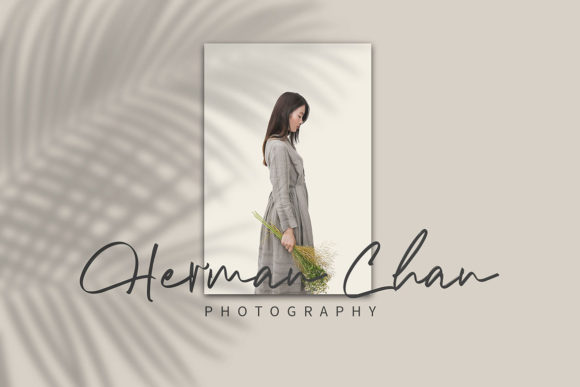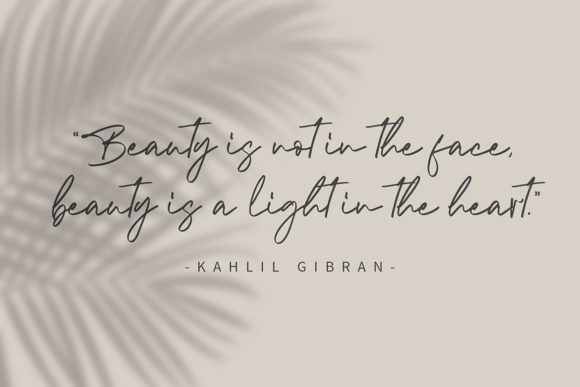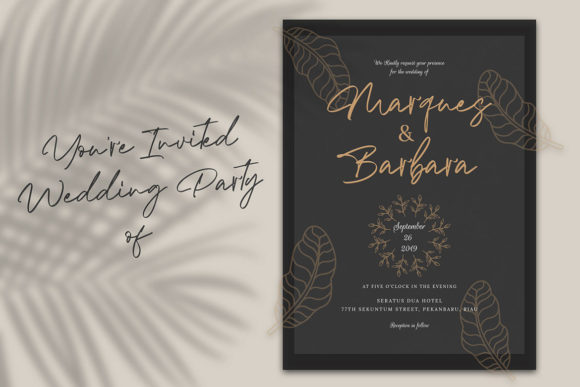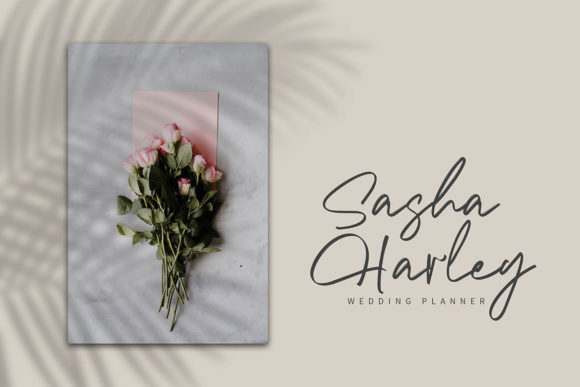
About The Morgan Font
The Morgan is an elegant and flowing handwritten font that captivates with its versatility and grace. With its smooth and organic letterforms, this font exudes a sense of sophistication and beauty, making it a perfect choice for a wide range of projects.
When it comes to wedding invitations, The Morgan shines as it adds a touch of elegance and romance to the design. Its flowing strokes and delicate curves create a sense of movement and grace, setting the tone for a special and memorable occasion. Whether you’re planning a traditional or modern wedding, The Morgan can beautifully complement the theme and convey the desired mood.
In addition to wedding invitations, The Morgan is also well-suited for creating beautiful stationery art. Its flowing and fluid nature lends itself to creating stunning letterheads, note cards, and personalized stationery. The font’s versatility allows it to adapt to various styles, whether you prefer a classic and timeless look or a more contemporary and artistic approach.
Eye-catching social media posts are another area where The Morgan can truly shine. Its elegant and flowing script adds a touch of sophistication and professionalism to your visuals, making them stand out in a crowded digital space. Whether you’re creating Instagram quotes, Facebook banners, or Pinterest graphics, The Morgan will help you create captivating and visually appealing content.
One of the key advantages of The Morgan is its ability to bring a sense of versatility to your designs. While it excels in formal and romantic settings, it can also be used to create more casual and playful designs. By adjusting the size, spacing, and pairing it with complementary fonts, you can adapt The Morgan to various design contexts, from luxury branding to whimsical illustrations.
When working with The Morgan, consider exploring its alternate characters, ligatures, and swashes to add variety and personalization to your designs. These additional glyphs can enhance the beauty of the font and allow you to create unique and customized compositions. The Morgan’s versatility and ability to convey different moods make it an excellent choice for designers seeking flexibility in their projects.
In terms of color and typography, The Morgan works well with a variety of palettes and pairings. It can be paired with both serif and sans-serif typefaces, depending on the desired aesthetic and mood. Experiment with different color combinations to create visually appealing contrasts or harmonious monochromatic schemes that enhance the elegance and impact of your designs.
Overall, The Morgan is a captivating and versatile handwritten font that elevates your designs with its elegant and flowing style. From wedding invitations to stationery art and social media posts, this font brings a touch of sophistication and beauty to your projects. Fall in love with The Morgan’s graceful curves and let it inspire you to create stunning and memorable designs.